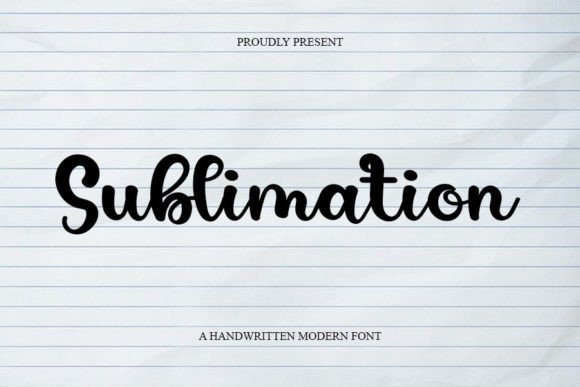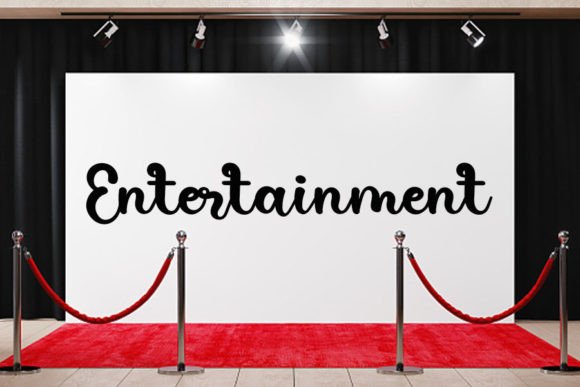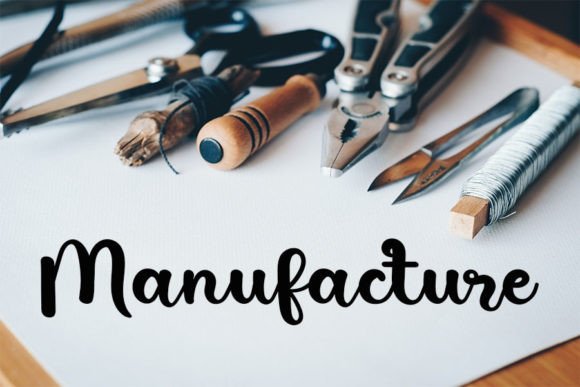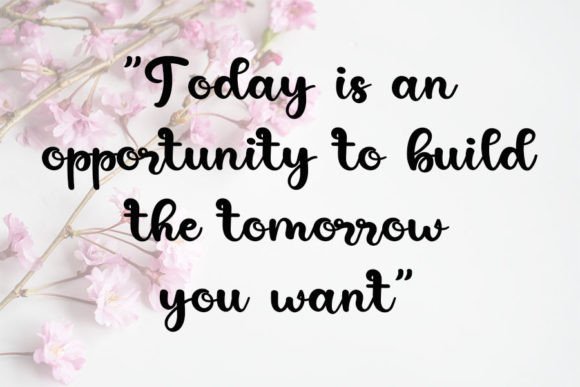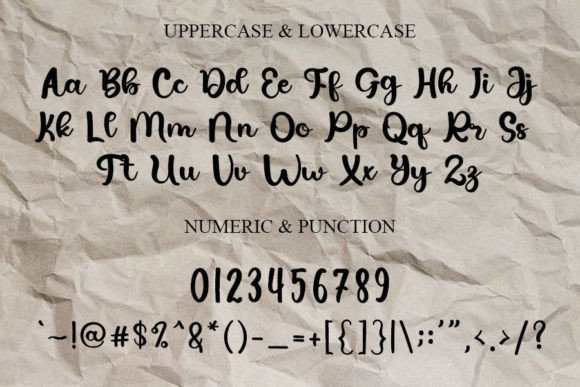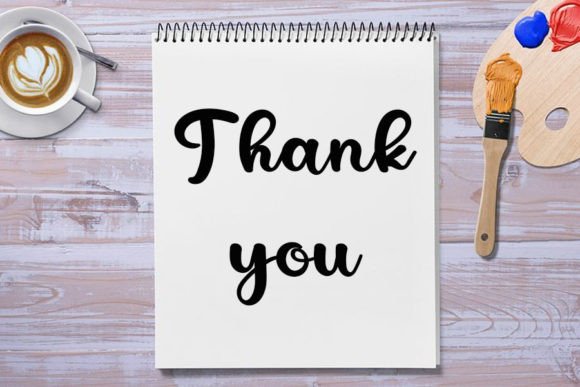
About Sublimation Font
Sublimation is a magical handwritten font designed with clean lines and a touch of elegance. It strikes the perfect balance between modern simplicity and playful charm. Whether you are designing a logo, creating social media graphics, or making DIY projects, this font helps your ideas stand out with ease.
Elegant and Quirky Style
Sublimation has a unique look that feels polished yet approachable. Every letter is carefully crafted with smooth curves and subtle details. The characters flow beautifully together, creating an organic, handwritten feel.
Its light quirkiness gives your designs a friendly, human touch. If you need a font that looks stylish without feeling too formal, Sublimation is an excellent choice.
Perfect for Versatile Projects
This font is highly adaptable. Use it for:
Logos & Branding: Give your brand a personal, elegant voice.
Social Media Posts: Make your captions, quotes, and announcements eye-catching.
Invitations: Perfect for weddings, birthdays, or baby showers.
Product Packaging: Works beautifully on labels, boxes, and tags.
Greeting Cards: Add warmth and authenticity to your messages.
DIY Projects: Great for stickers, mugs, t-shirts, and custom gifts.
No matter where you use it, Sublimation keeps your text clean and readable while adding a touch of personality.
Design Tips for Stunning Results
Here are some tips to make your designs shine with Sublimation:
Pair with Sans Serif Fonts: Use a clean sans serif alongside Sublimation for a balanced, modern look.
Use Soft Colors: Pastels and neutrals complement the gentle flow of this font.
Play with Spacing: Add extra letter spacing to create a relaxed, airy feel.
Mix Weights and Sizes: Use Sublimation for bold headlines and pair with a lighter font for body text.
Add Simple Illustrations: Enhance your designs with small icons, borders, or watercolor elements.
Why Designers Love Sublimation
Sublimation has become a favorite because of its clean yet expressive style. It feels both luxurious and accessible, which makes it perfect for creative professionals and hobbyists alike. Whether you are designing for a boutique brand or crafting a personal project, Sublimation adds an authentic, elegant touch that feels timeless.
Its versatility ensures that you can use it over and over again without it feeling repetitive. Each project you create with Sublimation feels fresh and unique.